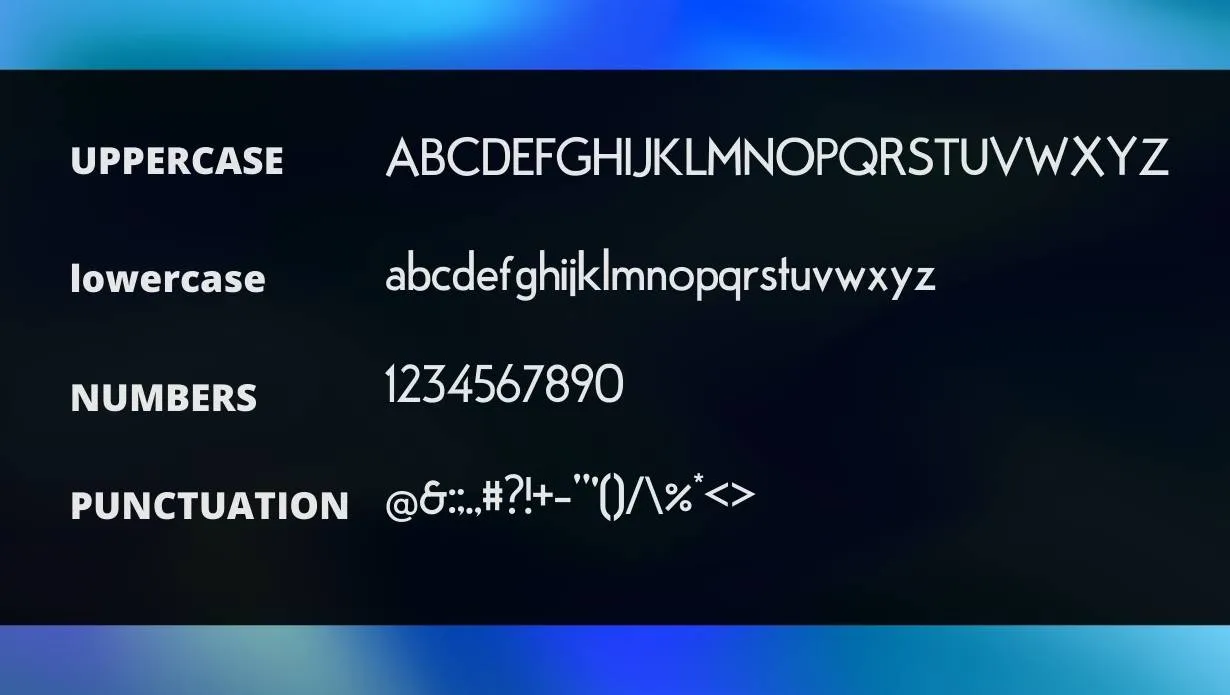
Fabrik Font is a typeface created by Swiss typeface designer Hannes von Döhren in 2009. It is a sans-serif font with a humanist touch.
Fabrik Font Info
| Name | Fabrik Font |
| Designer | Hannes von Döhren |
| Style | Sans Serif |
View of Fabrik Font